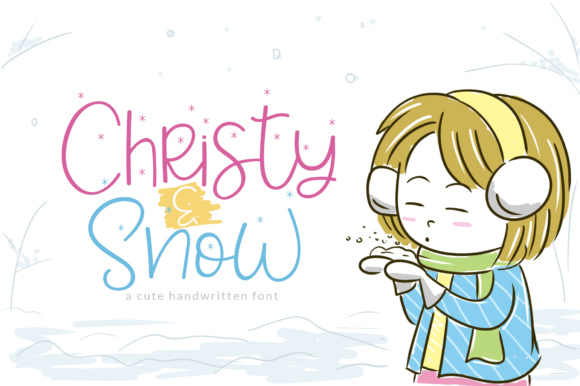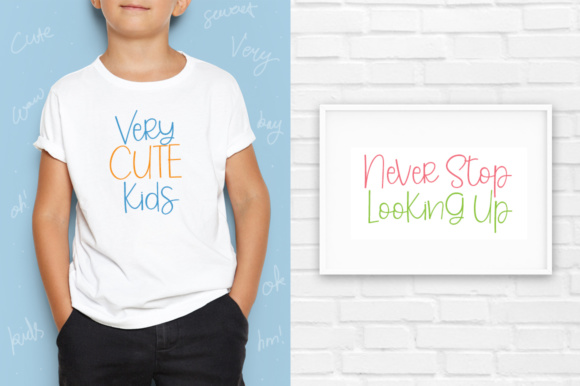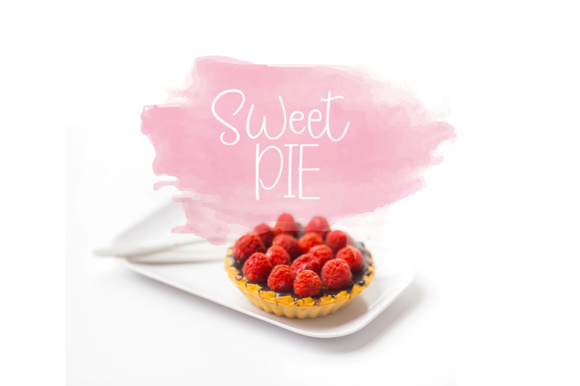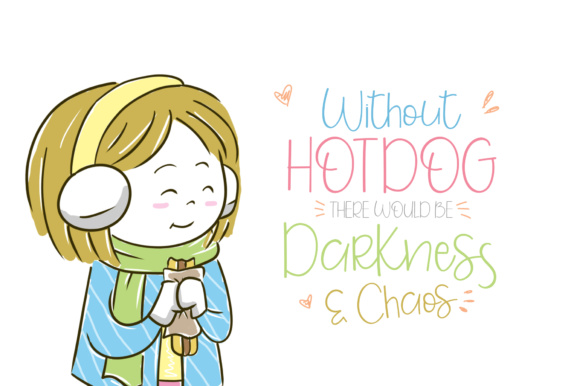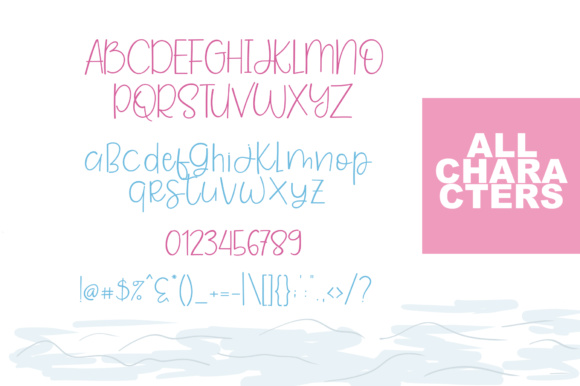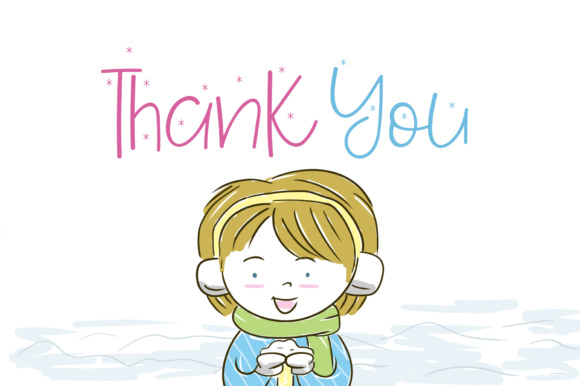
Christy & Snow Font
About Christy & Snow Font
Christy & Snow is a super cutesy, girly display script that comes in 2 variations: Regular & Snow!
The Snow version offers small snowflakes embellishments on each letter.